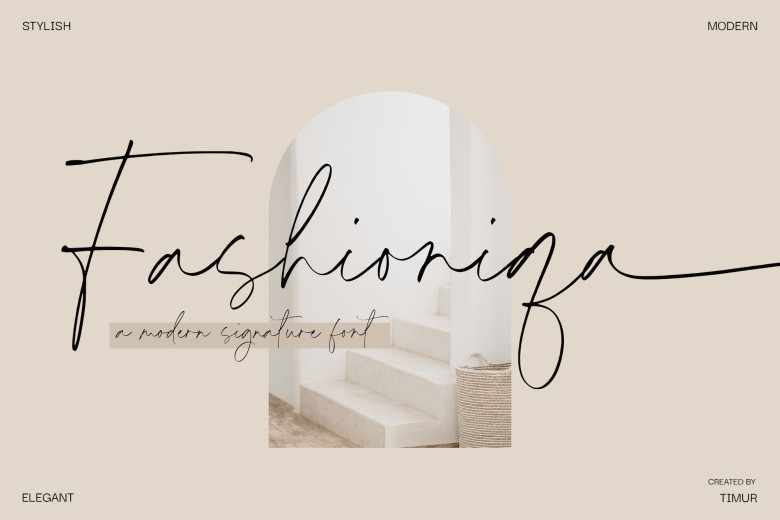
Fashioniqa Font
Fashioniqa – modern and romantic handwritten signature font, created with great care and specially for you. Fashioniqa is suitable for product packaging, branding project, magazine, social media, wedding invitations, or just used to express words above the background.
Fashioniqa Signature Script Font